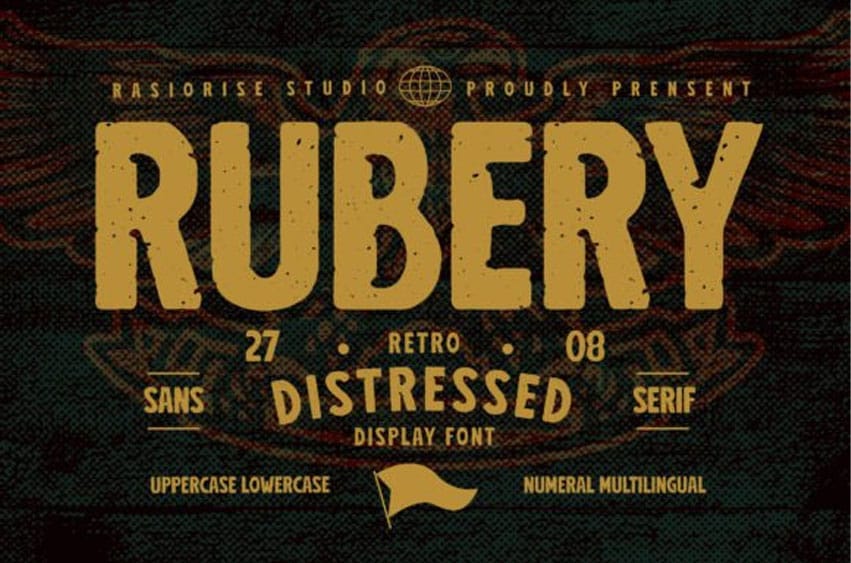
Rubery Font is a sans serif font that has been released for those of you who are looking for a Distressed Sans-Serif is a unique typeface that a raw texture, rough aesthetic, blending the shape of a sans-serif font with an intentionally weathered or grunge appearance.